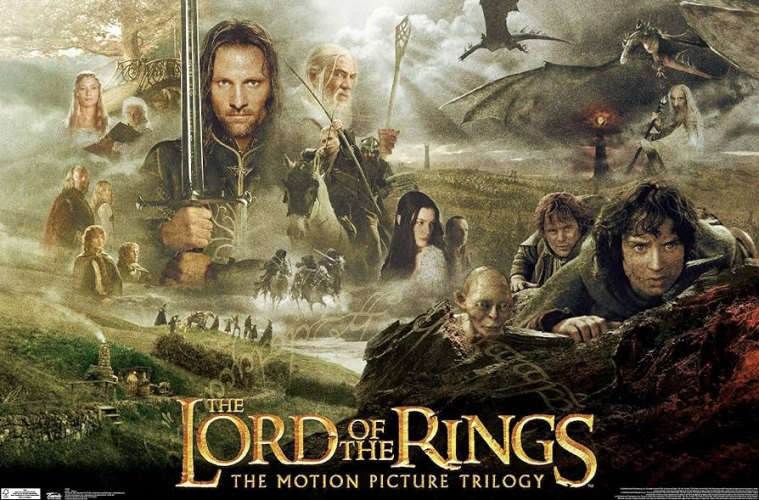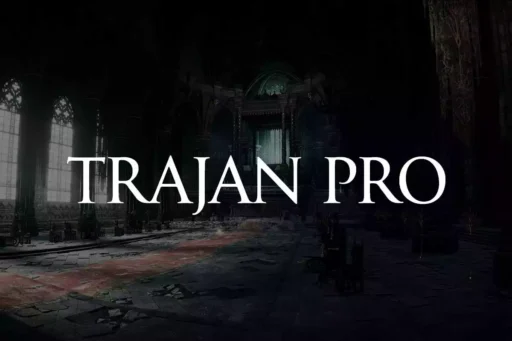
Trajan Pro Font
Trajan Pro, a serif font based on the inscriptions found on the Roman Trajan’s Column, is one of the most definitive designs that epitomize the concept of style and soph…
Trajan Pro, a serif font based on the inscriptions found on the Roman Trajan’s Column, is one of the most definitive designs that epitomize the concept of style and sophistication in the typography. Due to its eternal charm and adaptability, Trajan Pro is used in many designs, including movie posters, book covers, logos, and more. In this article, the history, characteristics, application, and continued relevance of Trajan Pro will be discussed to understand why this font remains popular even to this date.
The historical background of Trajan Pro revolves around the Trajan’s column, a historical artifact in Rome that marks the triumph of Emperor Trajan over the Dacian Wars. The words on the column are carved in Roman square capitals and the quality inspired Carol Twombly, a type designer at Adobe. In 1989, Twombly took his time to create Trajan, a font that imitated ancient inscriptions to the letter.
Trajan was, therefore, popular for its classical aesthetics and its readability. However, it did not have the flexibility that is useful in today’s design processes. Knowing this, Adobe hired Matthew Carter and Robert Slimbach to further develop the Trajan font into a complete family of fonts, which led to the creation of Trajan Pro in 1999. Trajan Pro had more weights, italics, and small capitals included in the font, making it versatile for use in different designs.
The peculiar characteristics of Trajan Pro allow for easy identification of the font and its versatility in use. The font’s most distinctive feature is the uppercase letters that convey a feeling of sophistication and regality. The letterforms are of the Roman square capitals type with sharp edges and clear serifs, and well- balanced stroke thickness. The font has a strong differentiation between the heavy and the light parts of the strokes which makes the font both attractive and legible.
Another aspect that characterizes Trajan Pro is the vast repertoire of characters. It contains an extensive set of glyphs, including ligatures, alternates, small caps, and a variety of numerals. This large character repertoire offers a great amount of typographic freedom and possibilities for design. It allows designers to make small, yet significant variations in their text and style, thus increasing the visual appeal of the text.
The generous x-height of Trajan Pro is the height of lowercase letters such as ‘x’, and this makes it quite readable even at small sizes. The font features precise spacing and kerning to achieve the highest readability and proper balance of the text flow.
Due to the flexibility of this font, It is an ideal choice to use in various fields concerning design. Because of its classical look and the general association with history and power, this font is great for projects that need to convey a certain level of importance.
In the film and television industry, Trajan Pro font is now popularly related to movie posters of epic proportions. This typeface is a great display type as it is a capitalization type, which means that it has big capital letters to capture attention and is suitable for titles and slogans. It frequently appears in posters for many big films such as Titanic, Gladiator, and The Lord of the Rings.
Trajan Pro has a polished look, which makes it suitable for book covers, especially in the historical, biographical, and classic fiction categories. This font gives the impression of old history to the works and thus makes them appear more credible.
Besides the film and publishing industries, the Trajan Pro font has been used in many logos, brandings, and advertisements. Due to its flexibility and the ability to stay relevant even in the modern world, it is an ideal font for designers who want to create a dignified look.
Though Trajan Pro stands on its own as a font type, there are some other fonts with the same qualities that can used depending on the design requirements. Some notable examples include
The continuous use of Trajan Pro, even up to the present, is proof of the effectiveness of its design and application. This font is a classic one, and its design is based on the magnificent Roman Empire; this font is quite famous for its use in the design industry for creating movie posters, book covers, and business logos. Thanks to its refined and classic appearance, Trajan Pro still inspires many designers and touches the hearts of people all over the world.
Trajan Pro is a serif typeface created by Carol Twombly in 1989 and is based on the lettering carved on Trajan’s Column in Rome. It has its origin in the lettering of the ancient Roman inscriptions especially those of the Trajan’s Column of Rome.